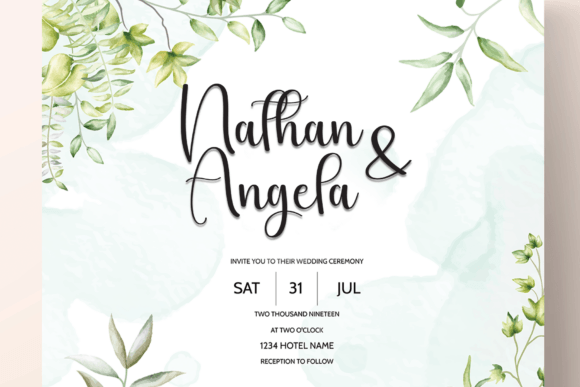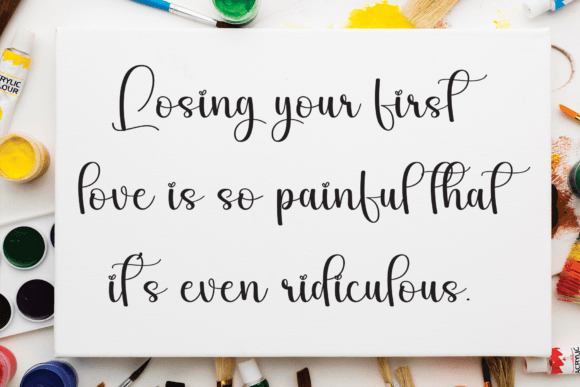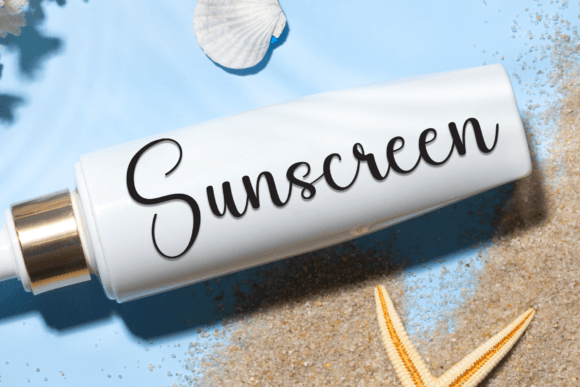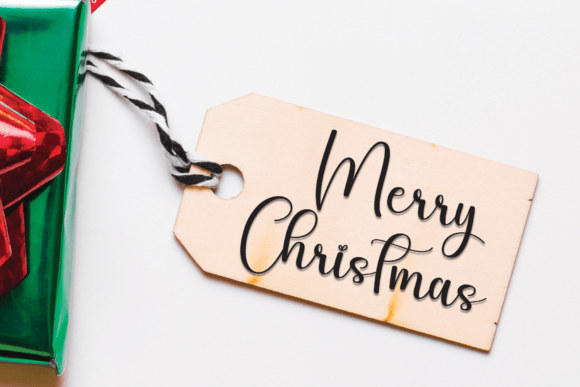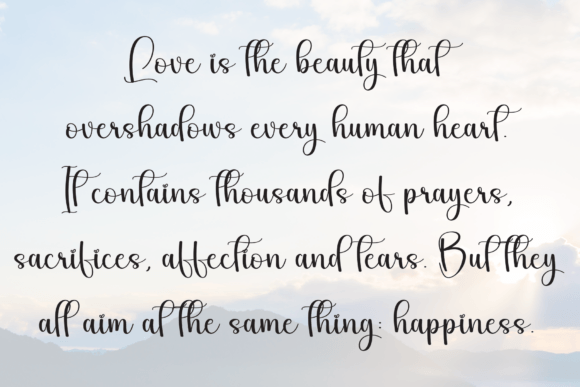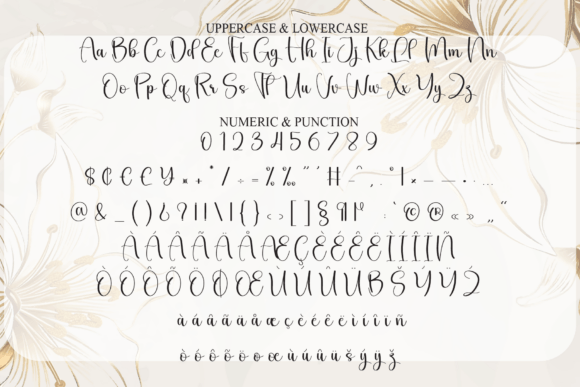
Unveiling the Charm of Elegant Font
Have you ever found yourself staring at a blank page, trying to come up with the perfect phrase to express your love and gratitude? For many of us, the pressure to create something truly special can be overwhelming. But what if I told you that there’s a secret ingredient that can add a touch of elegance and whimsy to your designs, making them truly unforgettable?
Enter Elegant Font, a delightful handwritten display font that’s designed to soften any design approach and add a sprinkle of joy to your creative projects. Whether you’re designing nuptial invites, heartfelt cards, or any other type of design that requires a personal touch, Elegant Font is the perfect choice. Its quirky and playful demeanor makes it a valuable asset for designers who want to add a touch of personality to their work.
Elegant Font Key Features
- Font Family: Elegant Font comes in 5 unique styles (Regular, Italic, Bold, Bold Italic, and Outline) to cater to various design needs.
- Language Support: Elegant Font supports over 100 languages, making it an ideal choice for global branding and design projects.
- Unique Characteristics: Elegant Font features a unique blend of modern and classic elements, with subtle flair and sophistication, making it perfect for luxury, high-end, and premium designs.
Elegant Font Review
First off, I want to say that I’m really impressed with the overall aesthetic of the Elegant Font. The ✨ sleek lines, the refined curves, and the subtle nuances all come together to create a truly sophisticated look that’s perfect for high-end branding and design projects. I’ve used this font for several logos, and the results have always been stunning.
- The Elegant Font is incredibly versatile and can be used in a variety of contexts, from modern websites to luxury print materials.
- It’s available in a range of weights and styles, making it easy to create a consistent look across different elements of your design.
- The font is highly legible, even at small sizes, which is essential for any design project.
However, I do have a few reservations about the Elegant Font. ⚠️ One of the main limitations is that it can be a bit overused in certain design circles. If you’re not careful, your design might start to look like it’s borrowed from a generic template. Additionally, the font can be a bit challenging to read in certain digital contexts, such as on small screens or in low-light conditions.
Overall, I think the Elegant Font is a great choice for designers who want to create a sophisticated and refined look. With its versatility, range of styles, and high legibility, it’s a solid choice for a wide range of design projects. Just be sure to use it thoughtfully and avoid overusing it in your designs.
For a more elegant look, use the font in combination with a subtle gradient or shadow effect.
For a more polished look, use the font in combination with a high-contrast color scheme.
For a more professional look, use the font in combination with a clean and minimal design.
Elegant Font is perfect for:
2. Luxury branding and marketing materials.
3. High-end publications and magazines.
4. Formal presentations and proposals.
Alternatives to Elegant Font